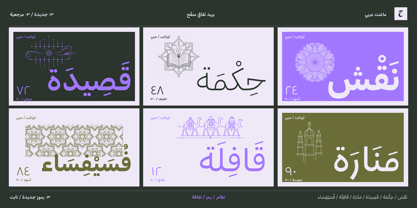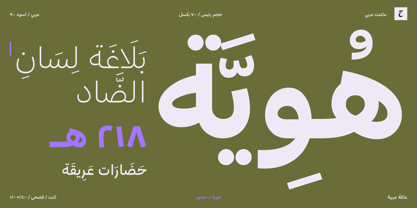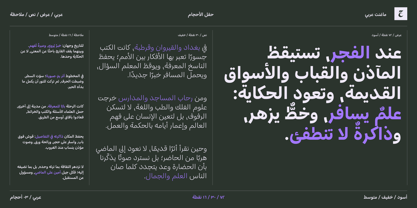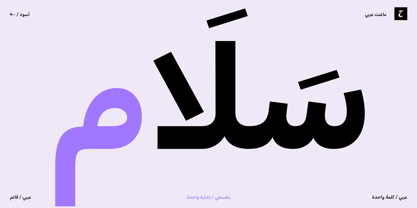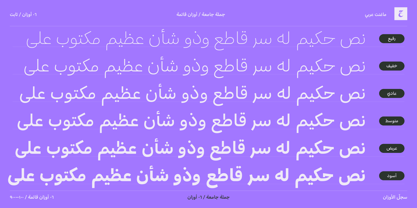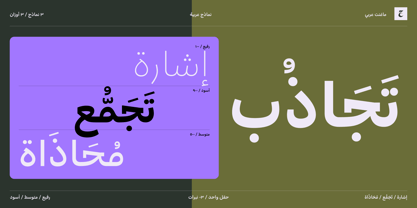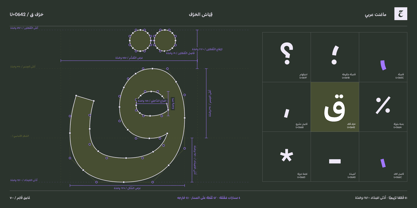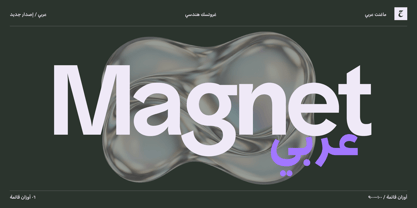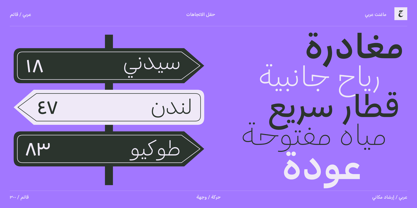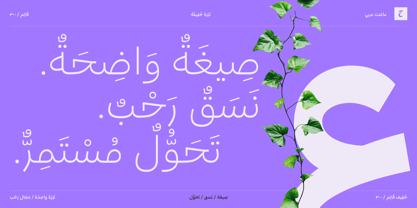
OT Magnet Arabic
Die Schriftfamilie OT Magnet Arabic wurde von Oussama Horchani, Jack Wilson entworfen und von OzType. veröffentlicht. OT Magnet Arabic enthält 6 Stile und Familienpaketoptionen. Mehr über diese Familie
OT Magnet Arabic is a contemporary Arabic sans serif typeface characterized by low contrast, designed to complement its Latin counterpart seamlessly. The typeface features extended horizontal connections, contained bowls, and rounded counters that create a strong graphic line. Clear internal spaces, along with distinct dots and diacritics, ensure legibility even as the weight increases. Instead of borrowing from Latin silhouettes, the design embodies the family’s shared principles of geometry and controlled warmth, expressed through cohesive Arabic construction. With six weights ranging from Thin to Black, this typeface is ideal for editorial text, user interfaces, and expressive display settings.